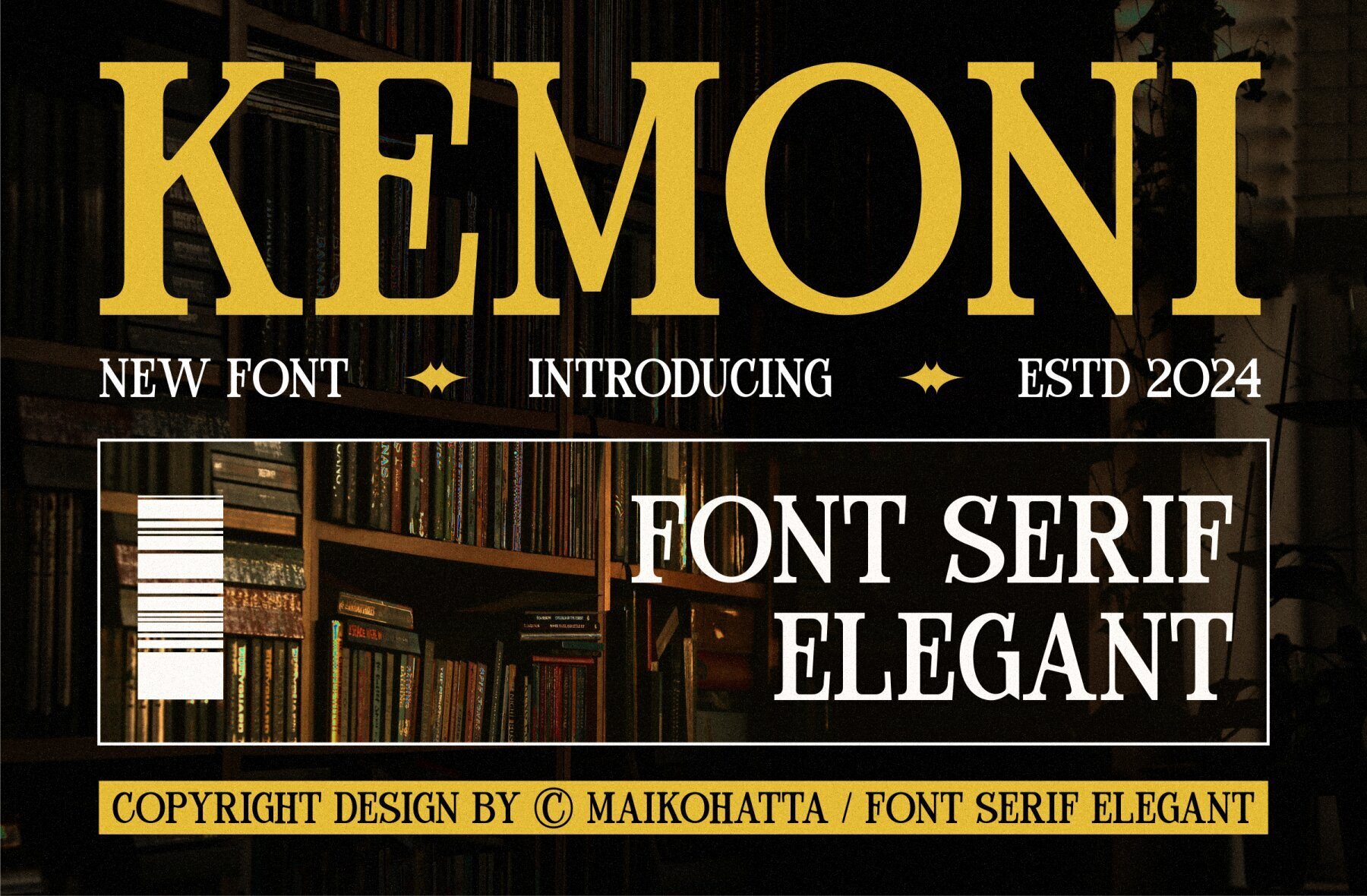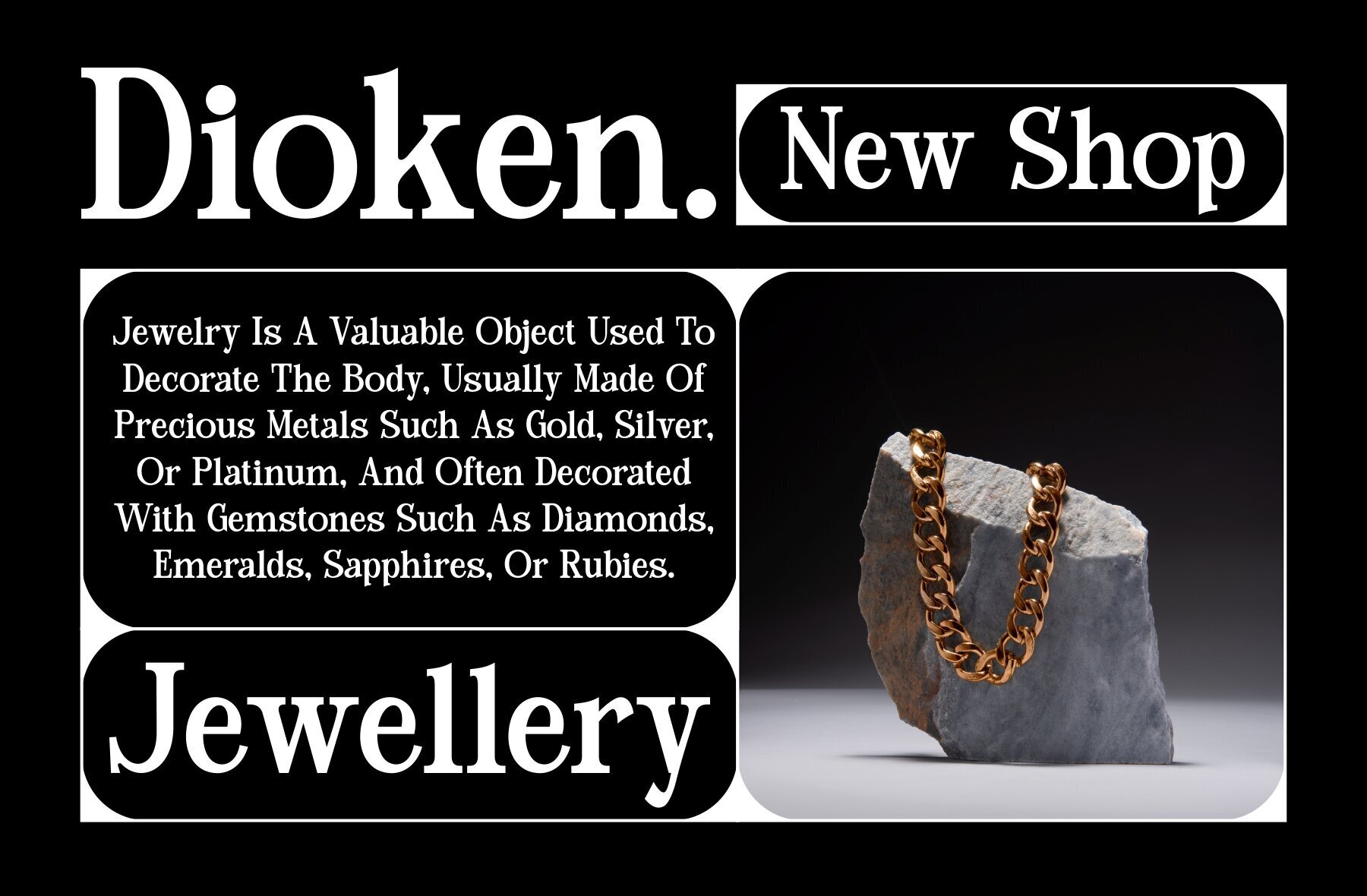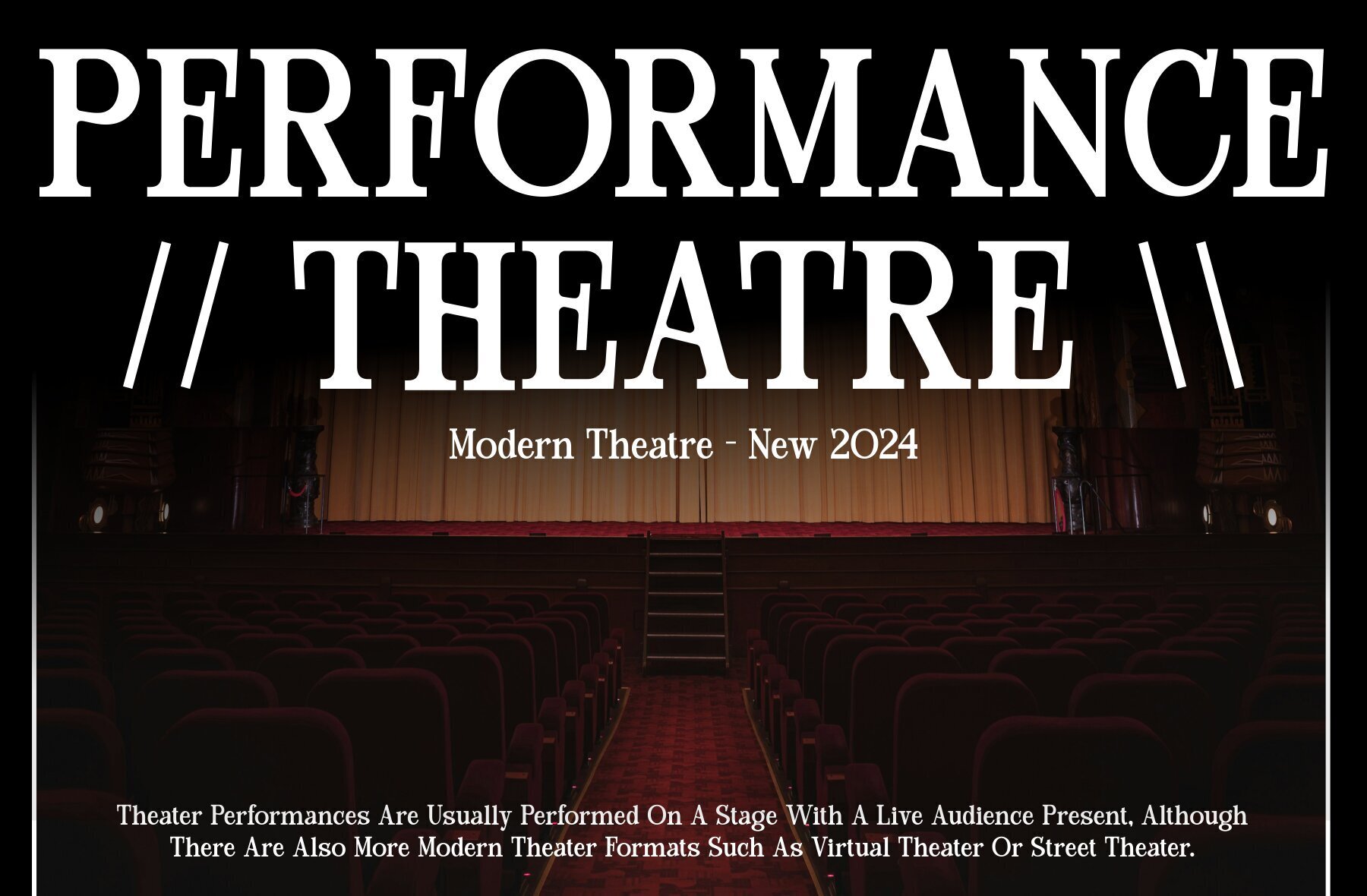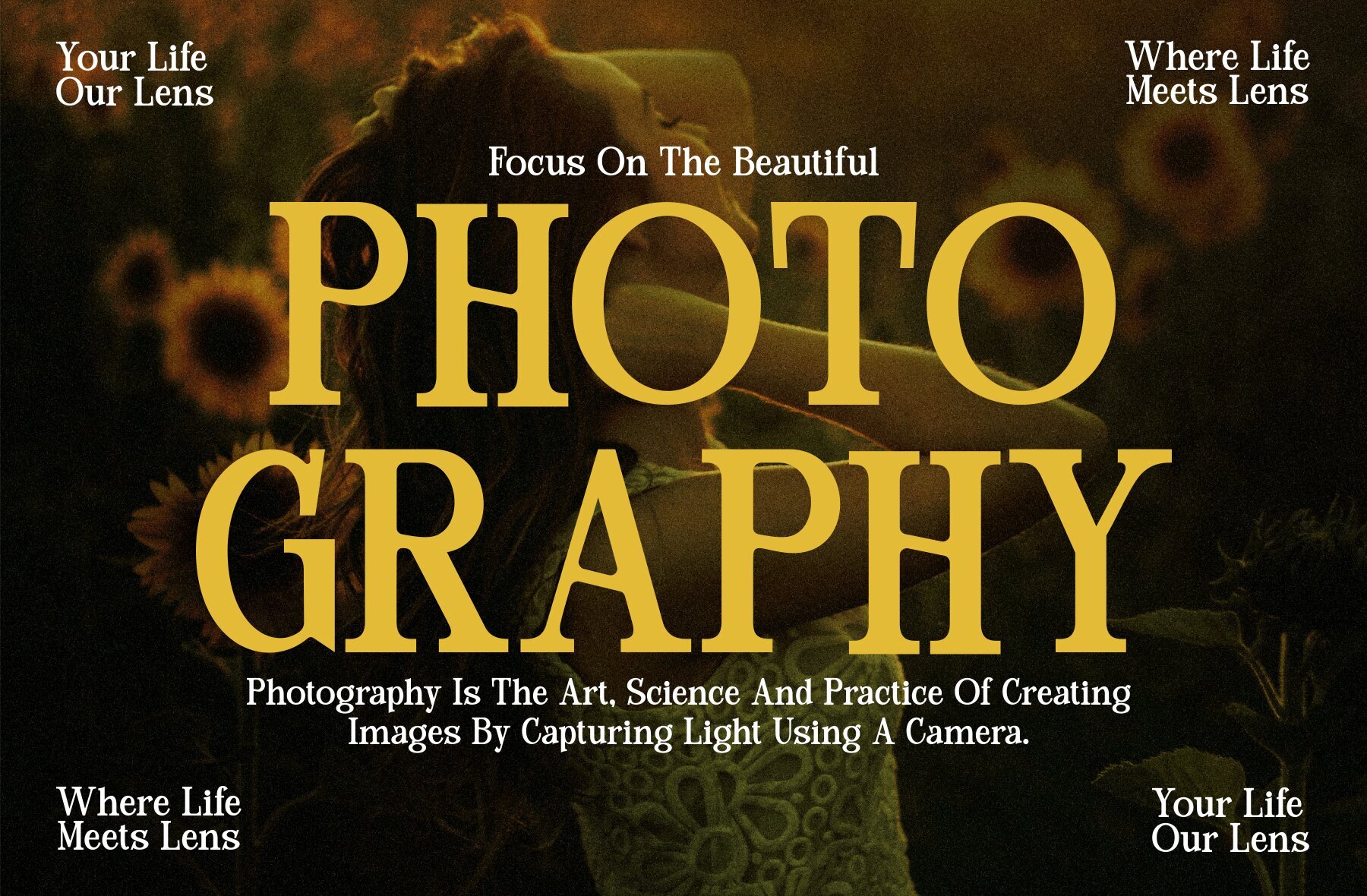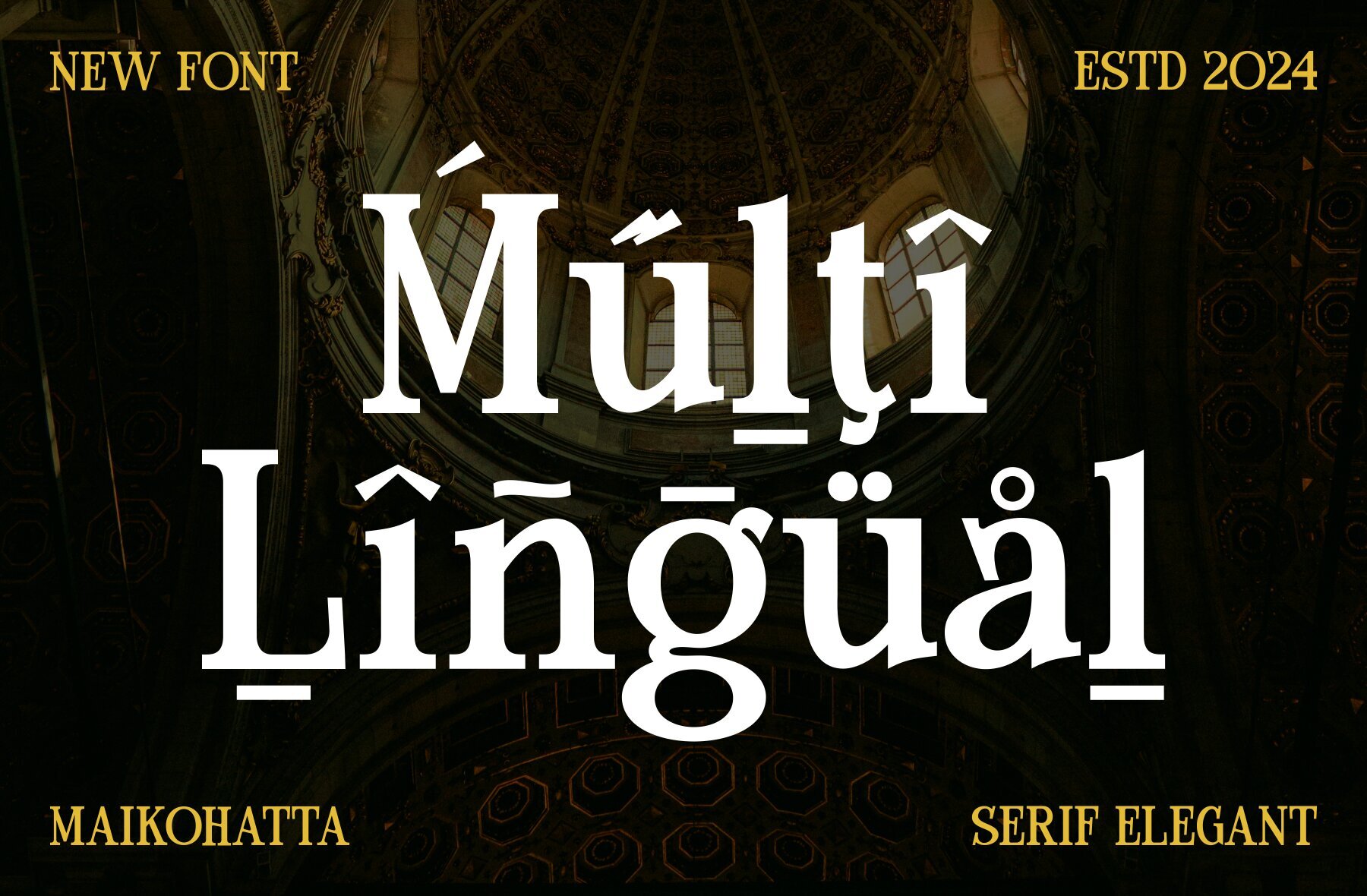
Kemoni Font
Kemoni Regular
Kemoni is a serif font meticulously designed to embody luxury, elegance, and firmness. Its blend of balanced thin and thick lines, gentle curves, and clean serifs creates a visually striking typeface that is both sophisticated and refined. The sharp corners and fine details in each character contribute to a highly aesthetic look that stands out.
Kemoni supports both uppercase and lowercase characters and includes multilingual options, making it versatile for various design needs. Whether you're working on branding, editorial design, or any project requiring a touch of class, Kemoni offers a polished and elegant solution.